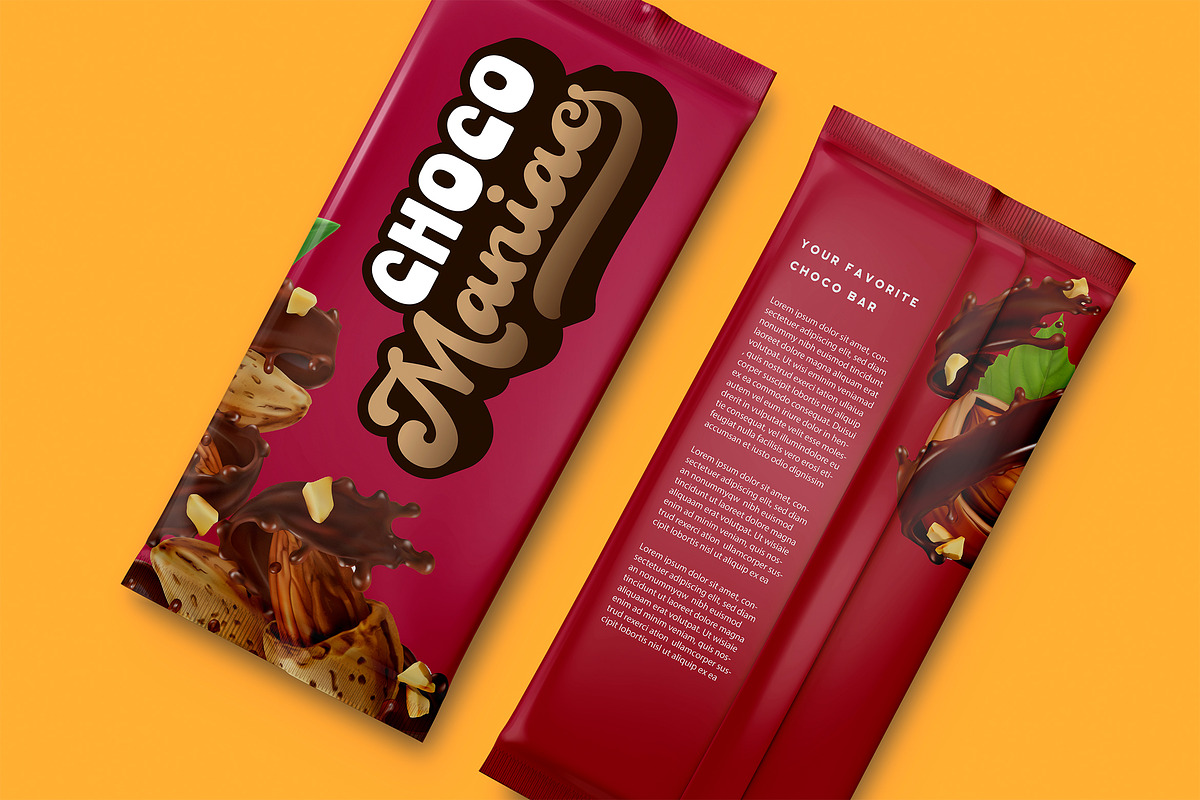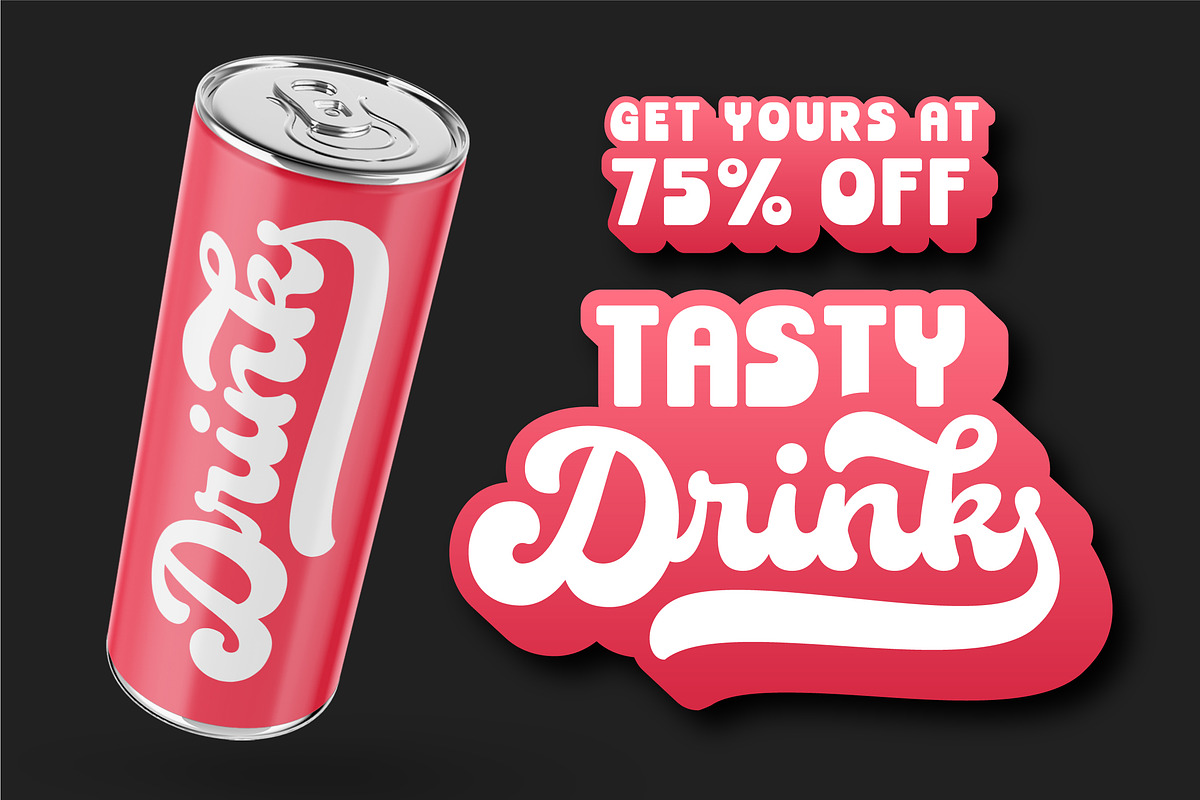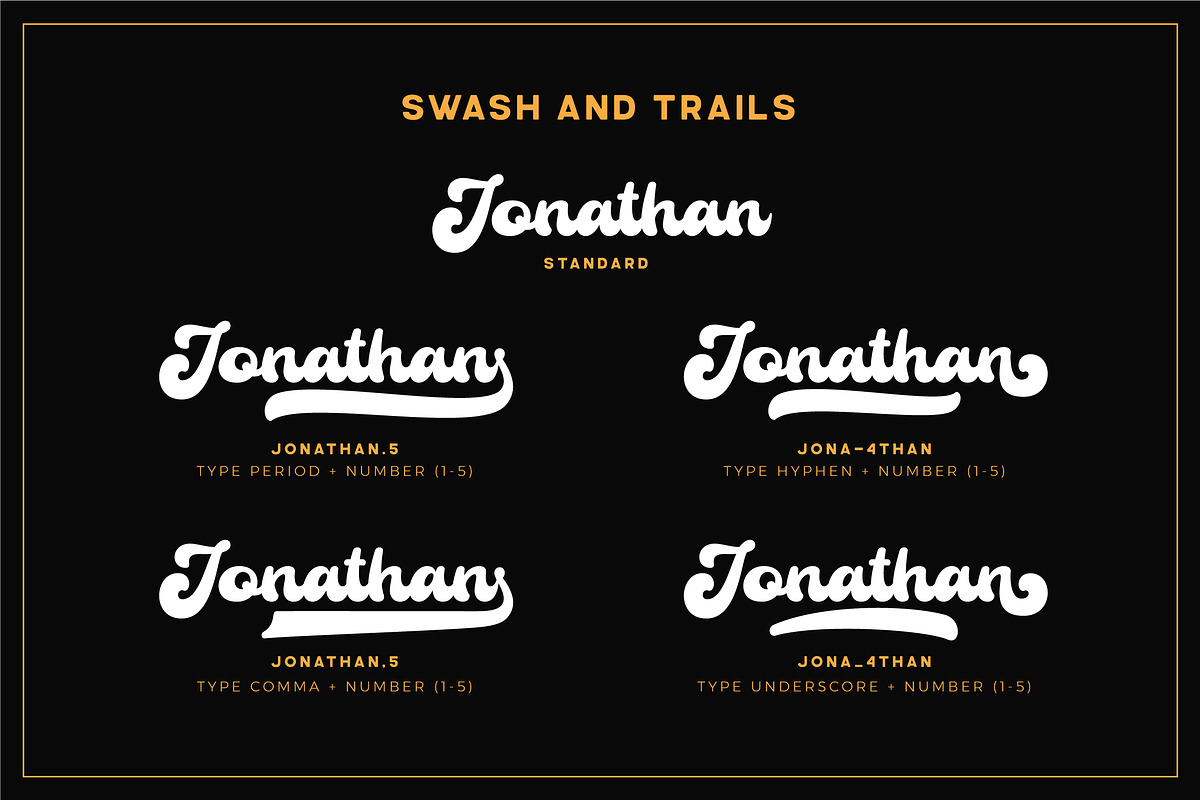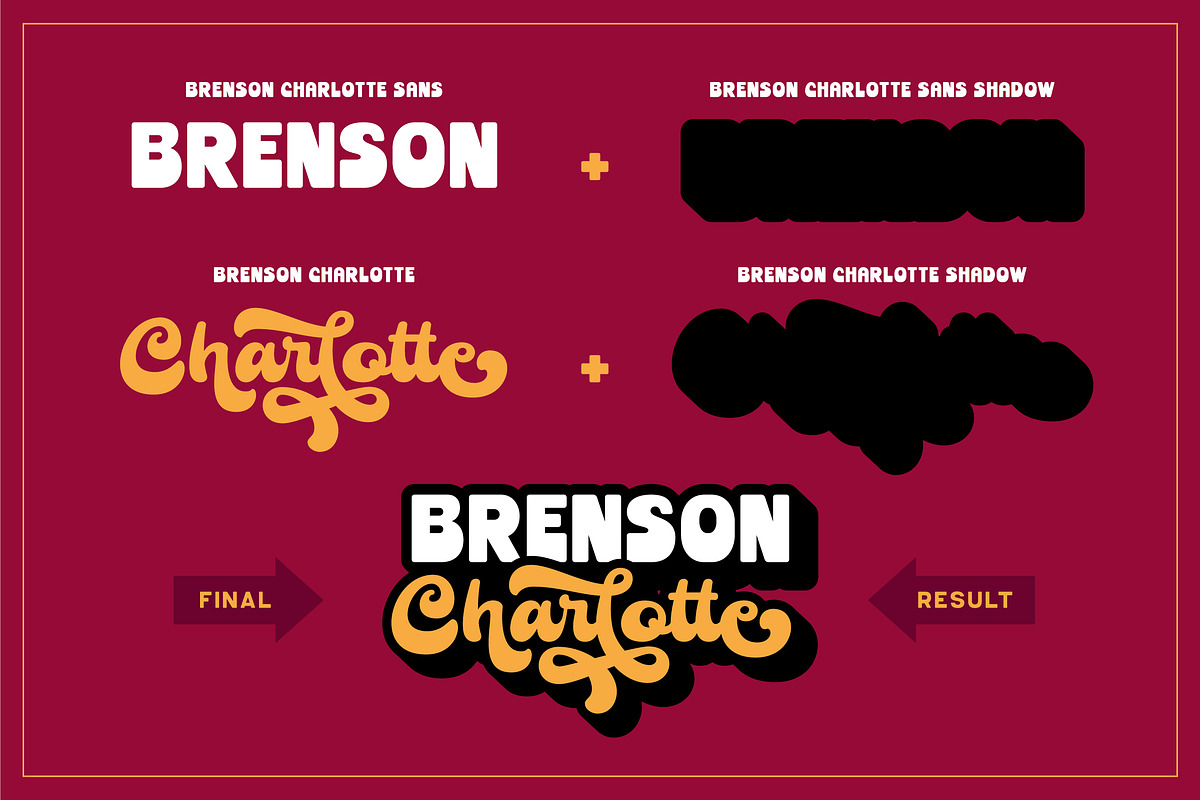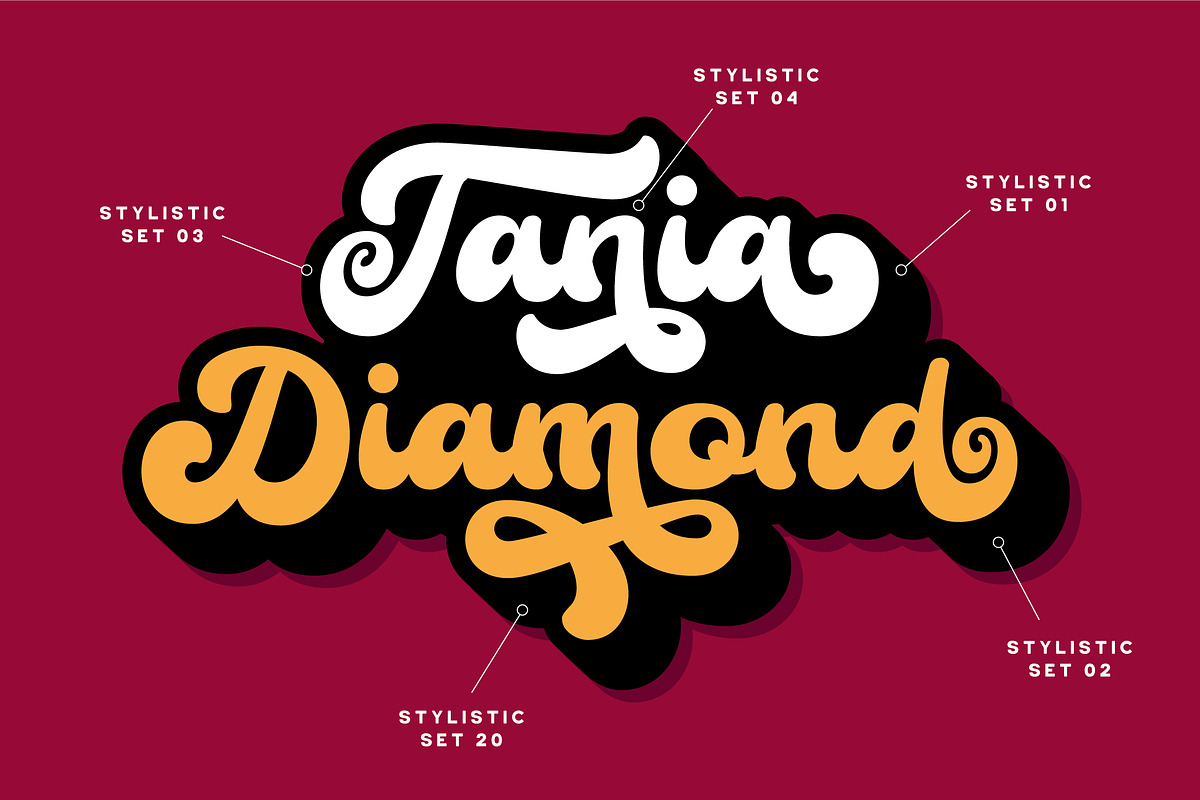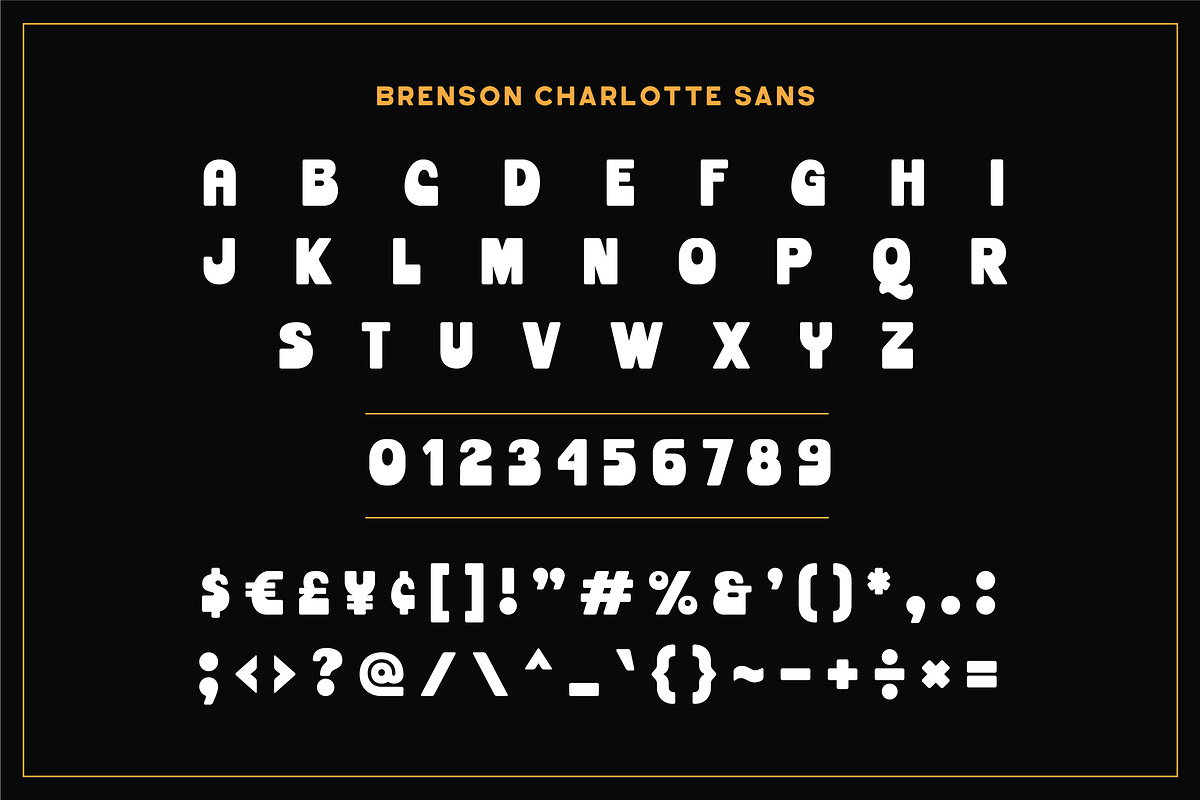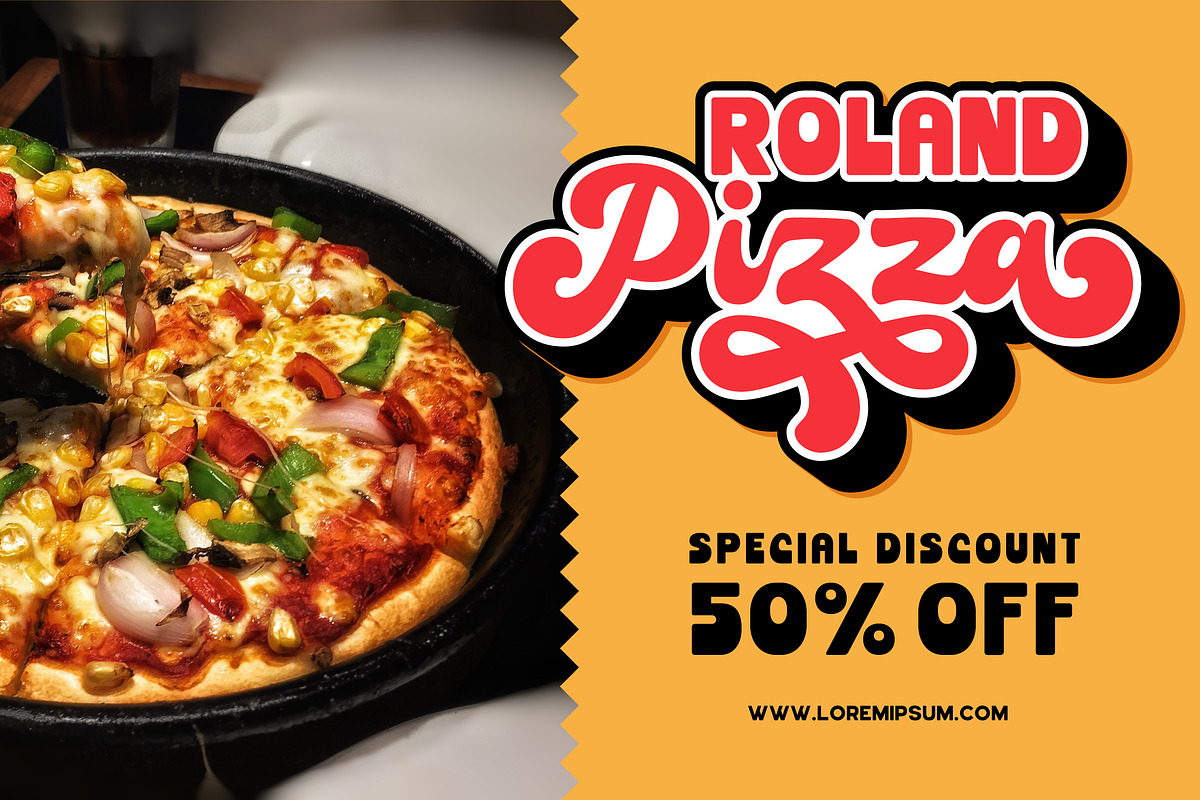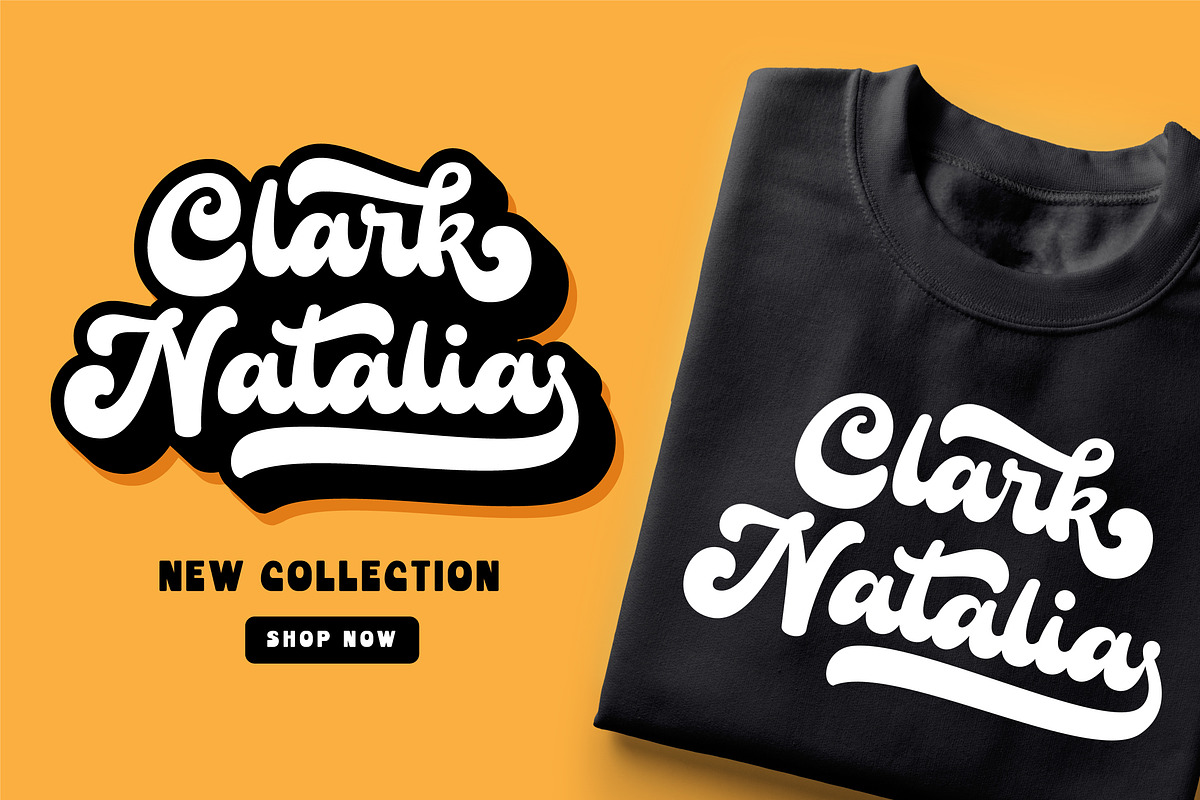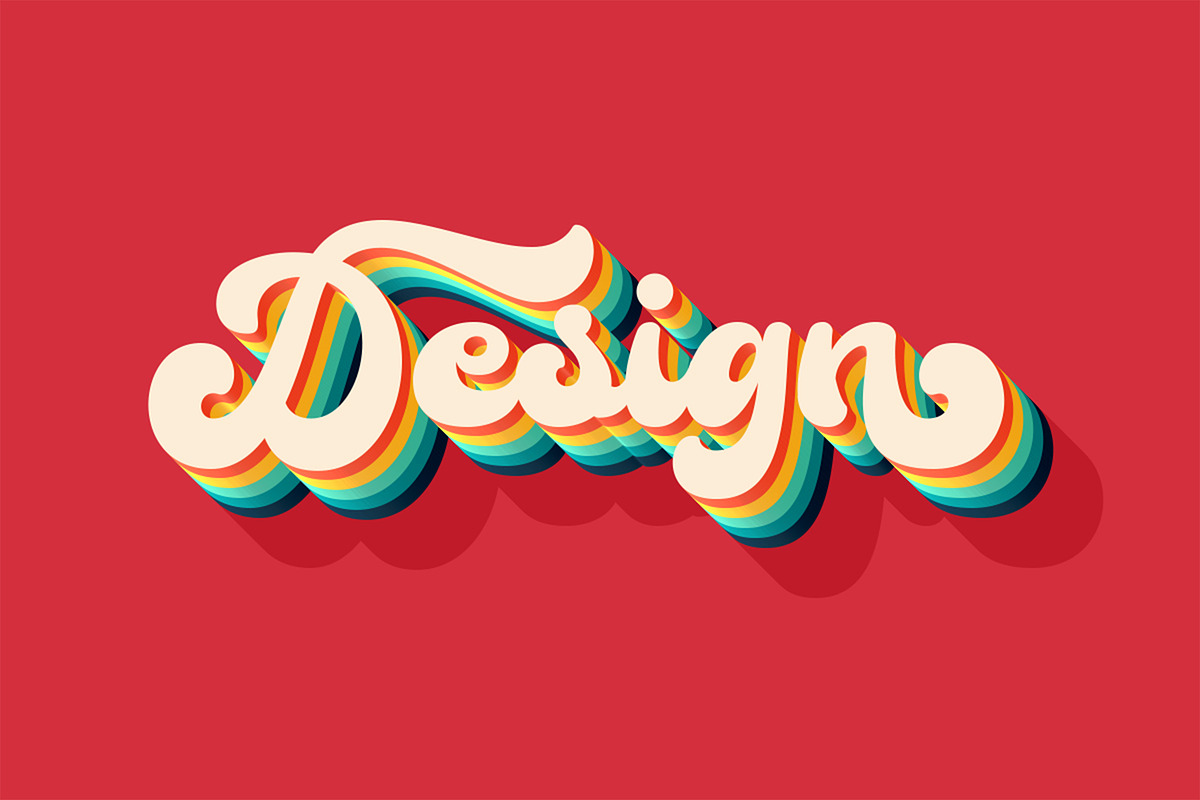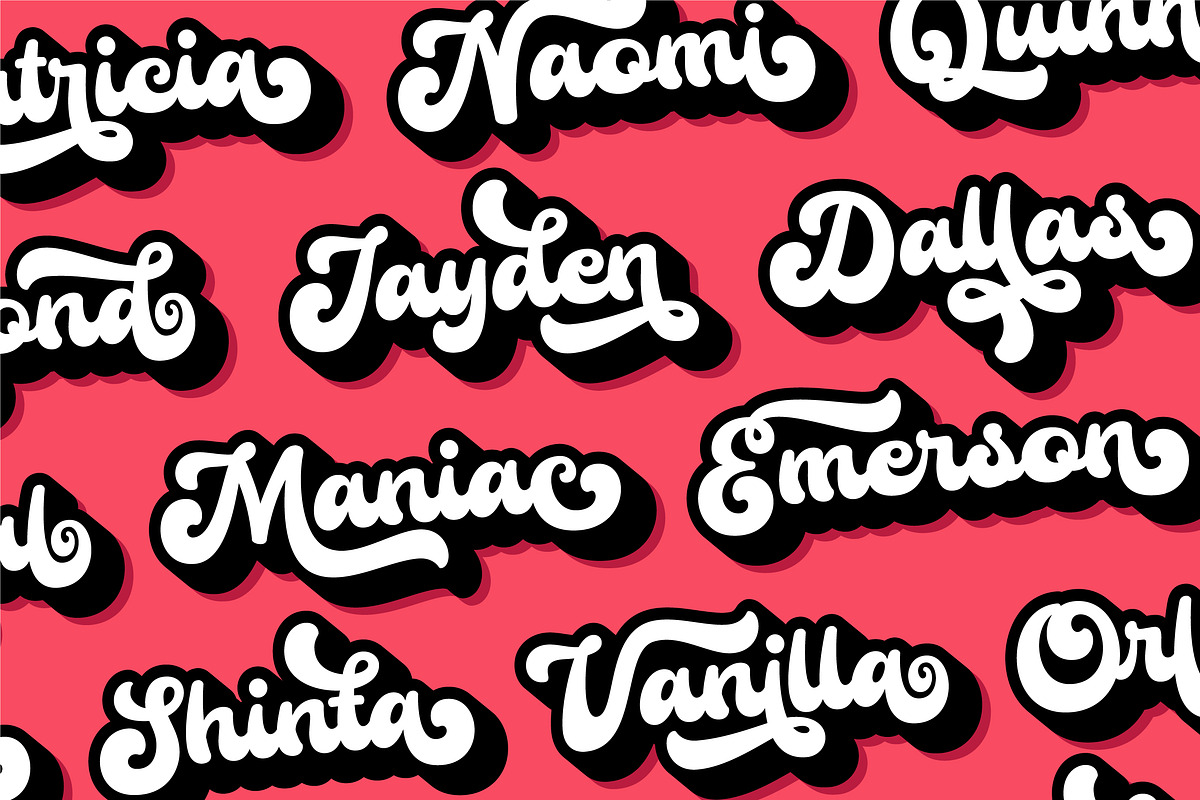
Brenson Charlotte - Retro Font Duo
Brenson Charlotte is a unique retro script and sans font duo. It has a bold and dynamic looks and is perfect for making any design stand out. Brenson Charlotte is perfect use for a logotype, typography design, product packaging, quotes, t-shirt design, label poster, headings, letterhead, cutting sticker, hot stamping, signage, and anything that need retro taste.
Get your nostalgic vibe with this unique font!
- A lot of Alternates ( With a Total of 800+ Glyphs )
- Multilingual Language